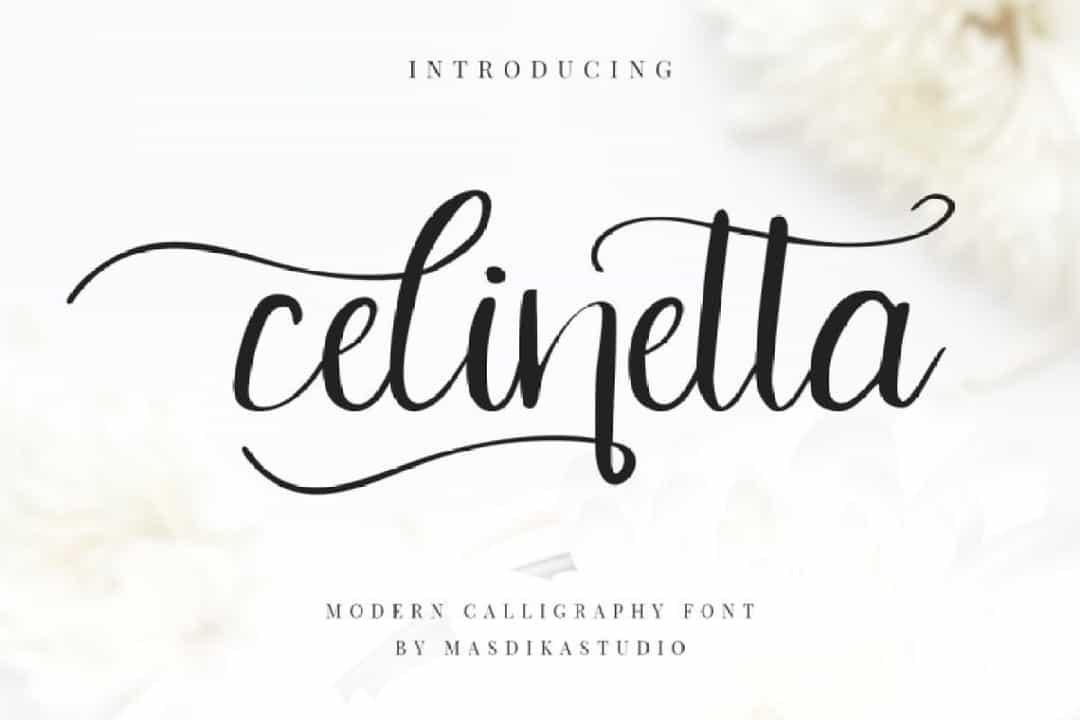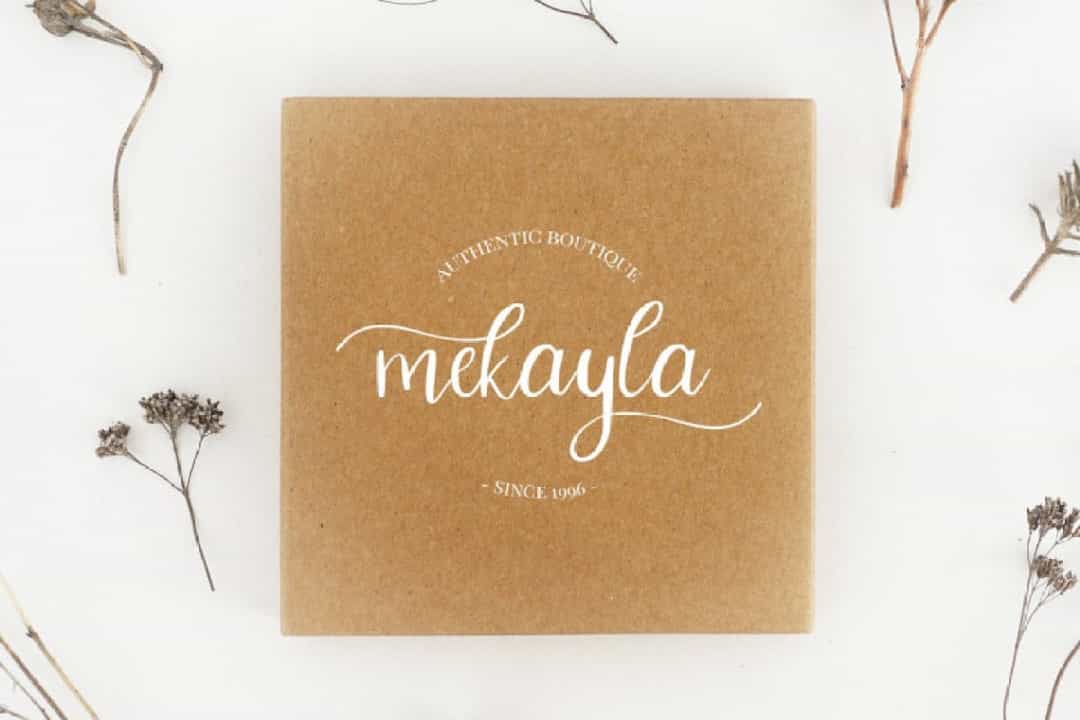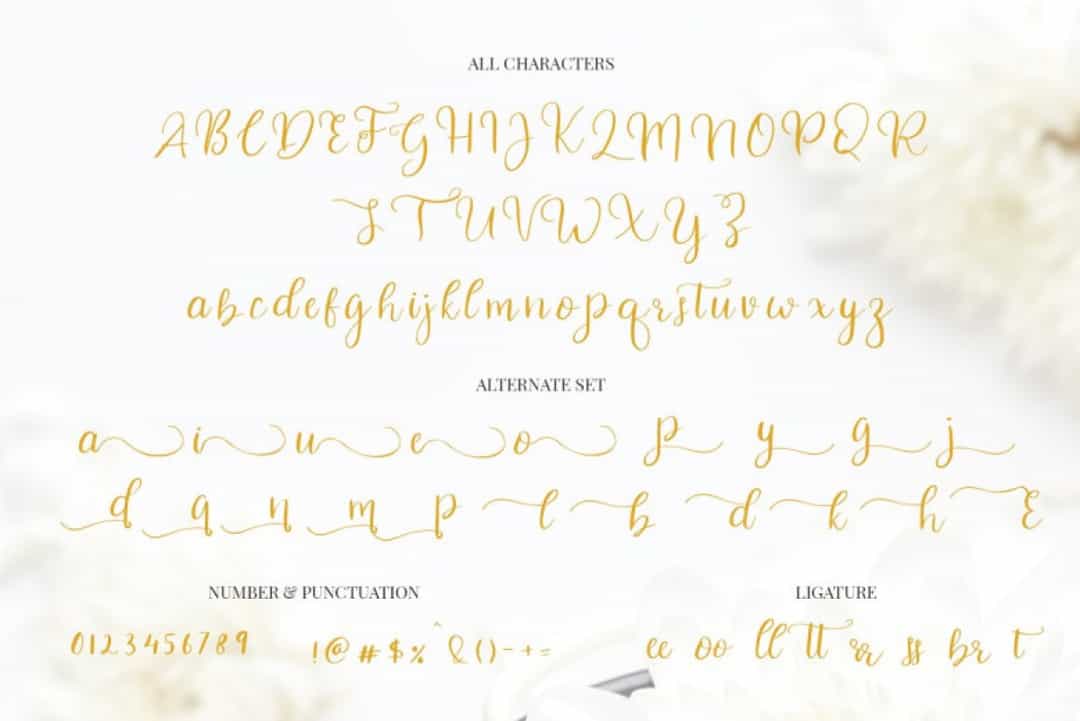
Celinetta is a gorgeously modern script font that has an stylish and delicious flow. The font comes with an Open Type feature that allows stylistic alternatives, such as terminal and initial letters as well as ligatures. International support for a variety of Western Languages is included.